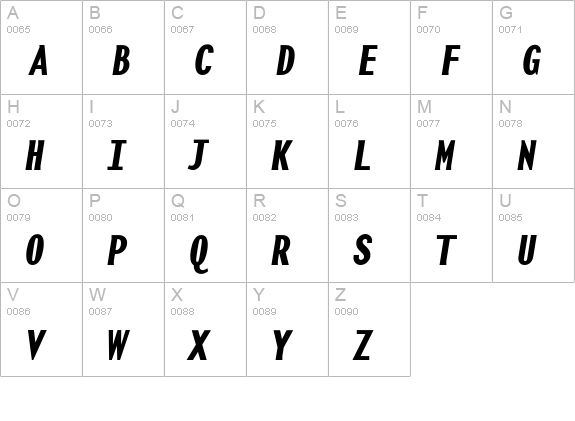
BaseMonoNarrowBoldItalic Font Details
BaseMonoNarrowBoldItalic is a versatile and modern font that is perfect for projects requiring a bold and narrow typeface with a touch of elegance. Its sleek design and strong presence make it ideal for headlines, titles, and branding materials. The italicized style adds a dynamic and sophisticated flair to any text. This font is available for free download at FontsMarket.com, making it easily accessible for designers, artists, and creatives looking to enhance their projects with a high-quality typeface. Whether you are working on a website, a poster, a logo, or any other design project, BaseMonoNarrowBoldItalic is sure to make a bold statement and elevate the overall aesthetic.